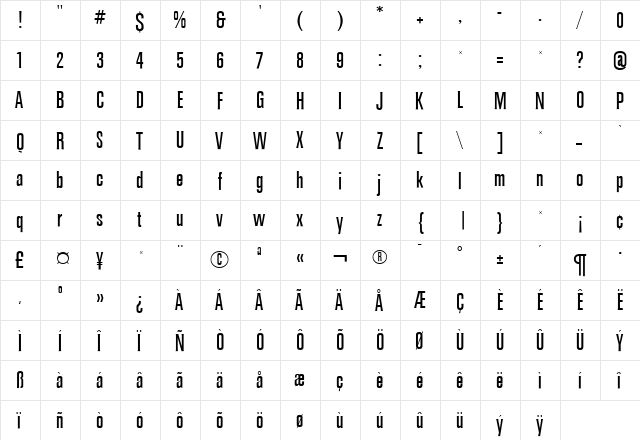
ColiseumRR Light
Design Context for ColiseumRR Typeface
ColiseumRR offers clean, dependable letterforms without strong stylistic allegiance, making it a practical choice for designers who need flexibility. The delicate stroke weight brings airiness and refinement to layouts.